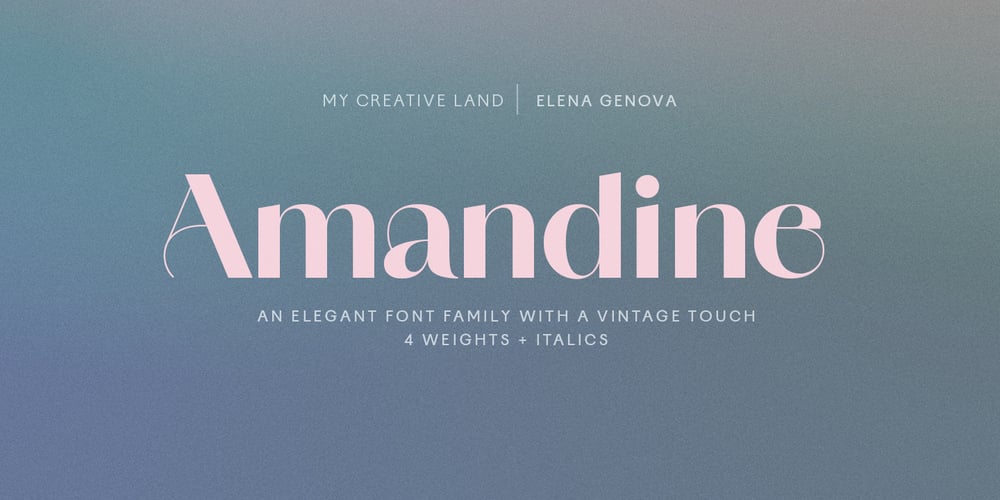
Amandine Font Family was designed by Elena Genova and published by My Creative Land. Amandine contains 8 styles and family package options. Amandine is a modern high contrast sans serif typeface that takes its inspiration from Didone family forms with some influence from vintage typefaces and calligraphy scripts.Amandine font family benefits from stylistic alternates, ligatures and swashes that are all based on the same signature curves.With its elegant forms and character set of more than 600 glyphs, covering most of the European languages, it is well suited for design of luxury brands, magazines, wedding invitations and stationary; packaging and more.